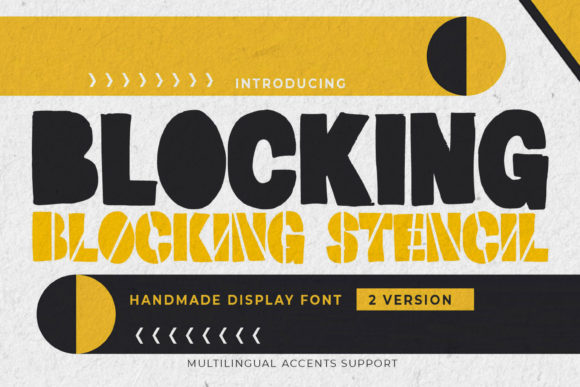
The Power of Blocking Font: Elevate Your Designs with Confidence
I’ll never forget the time I was working on a branding project for a local coffee shop. My client wanted a bold, eye-catching logo that would stand out on their packaging and marketing materials. I spent hours scouring font libraries, but nothing seemed quite right. That was until I stumbled upon Blocking Font. Its thick, sturdy letters immediately caught my attention, and I knew I had found the perfect fit. In this article, I’ll share my experience with Blocking Font, its features, and how to make the most of it in your designs.
An Honest Review of Blocking Font
- ✨ **Bold and Attention-Grabbing**: Blocking Font is perfect for making a statement. Its thick letters demand attention and are sure to elevate your designs.
- ✅ **Versatile**: From cards to branding, labels, and more, Blocking Font is a versatile addition to any design project.
- 💡 **Easy to Read**: Even at smaller sizes, Blocking Font remains clear and easy to read, making it perfect for a wide range of applications.
While Blocking Font is an excellent choice for many projects, there are a few things to keep in mind:
- 🤔 **Limited Emotional Range**: Blocking Font is a bold, serious font. It may not be the best choice for designs that require a more playful or whimsical feel.
- ⚠️ **Not Ideal for Body Text**: Due to its bold nature, Blocking Font is best used for headings or titles. It may be overwhelming for longer blocks of text.
A Practical Guide to Using Blocking Font
The Story Behind Blocking Font
Blocking Font was designed with the goal of creating a bold, versatile font that could be used in a wide range of applications. Its thick letters and clean lines make it perfect for designs that require a strong, attention-grabbing presence. Whether you’re working on a branding project, creating social media graphics, or designing packaging, Blocking Font is a great choice.
Q: What is Blocking Font best used for?
A: Blocking Font is best used for headings, titles, and other design elements that require a bold, attention-grabbing presence.
Q: Can I use Blocking Font for body text?
A: While Blocking Font is clear and easy to read, it’s not ideal for longer blocks of text. It’s best used for headings and titles.
Q: Is Blocking Font suitable for digital use?
A: Yes, Blocking Font is suitable for both print and digital use. Its bold, sturdy letters make it easy to read on a variety of devices.